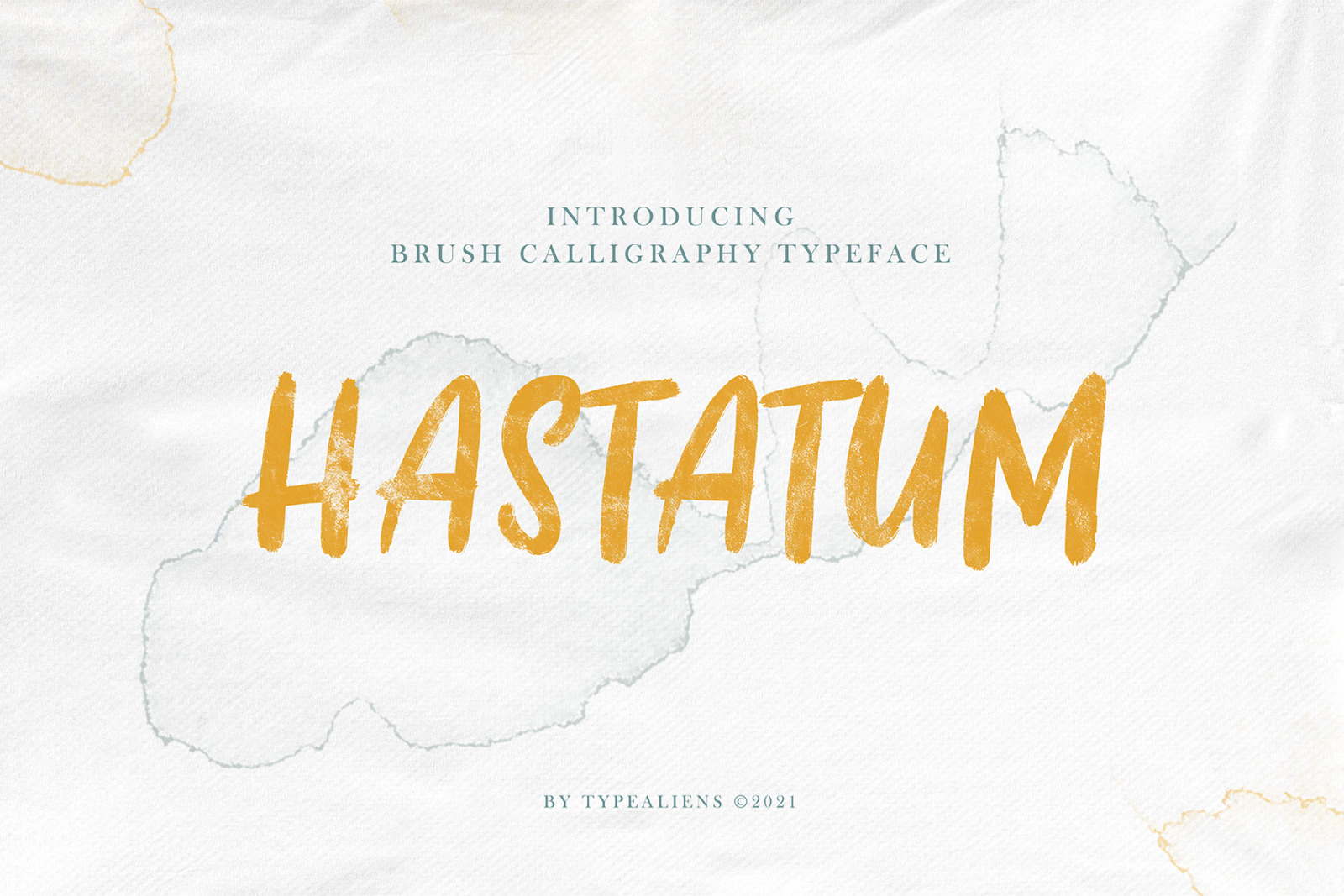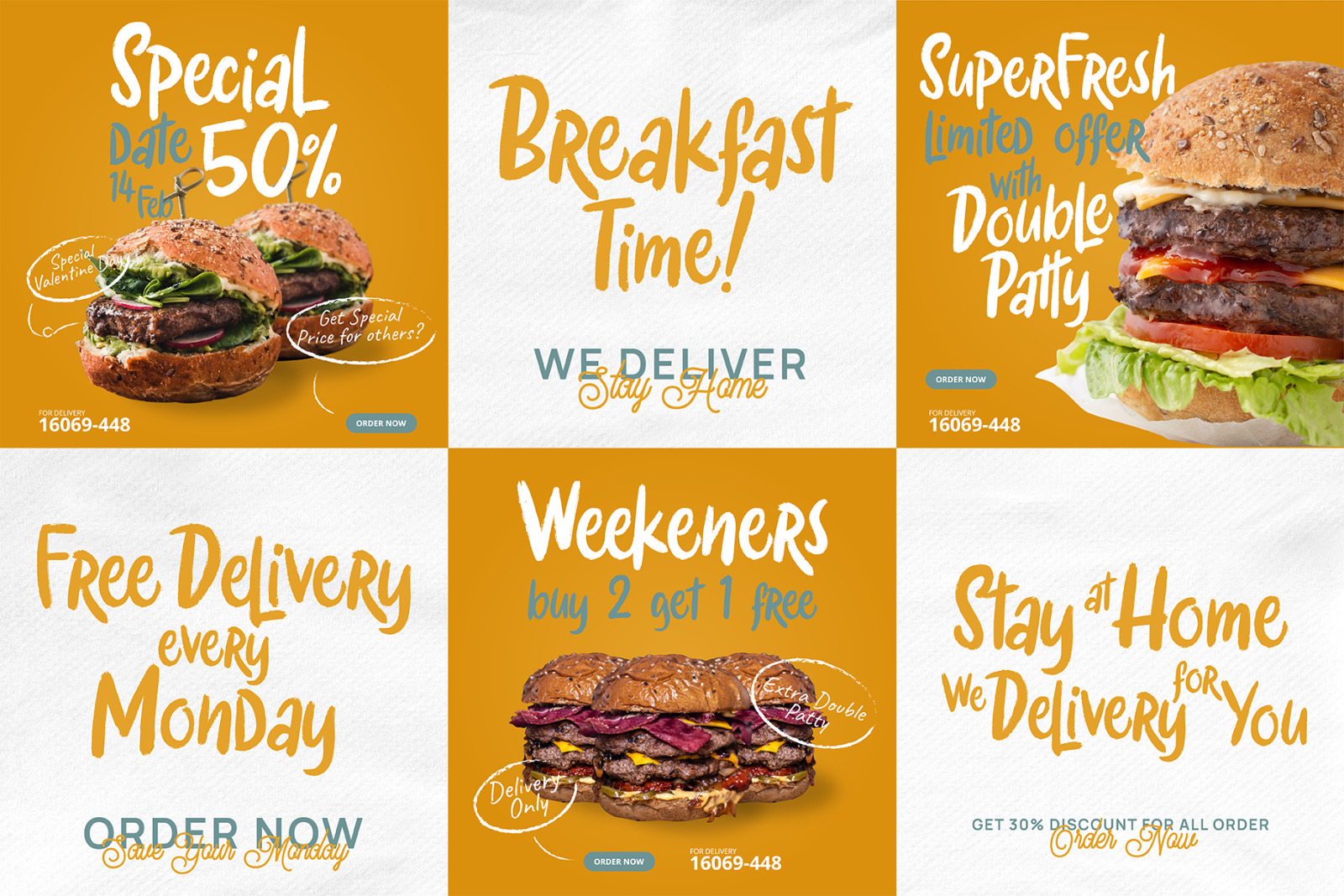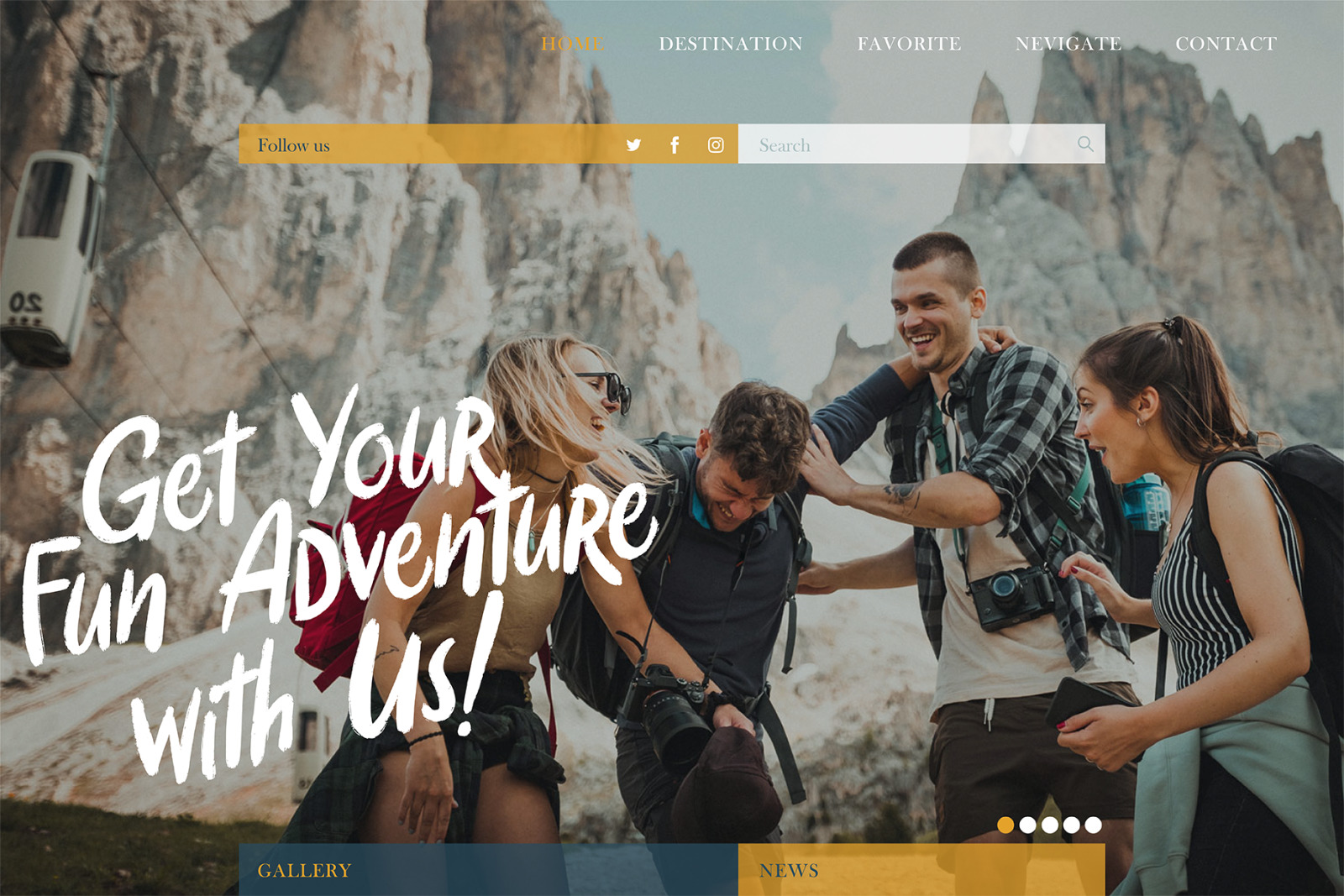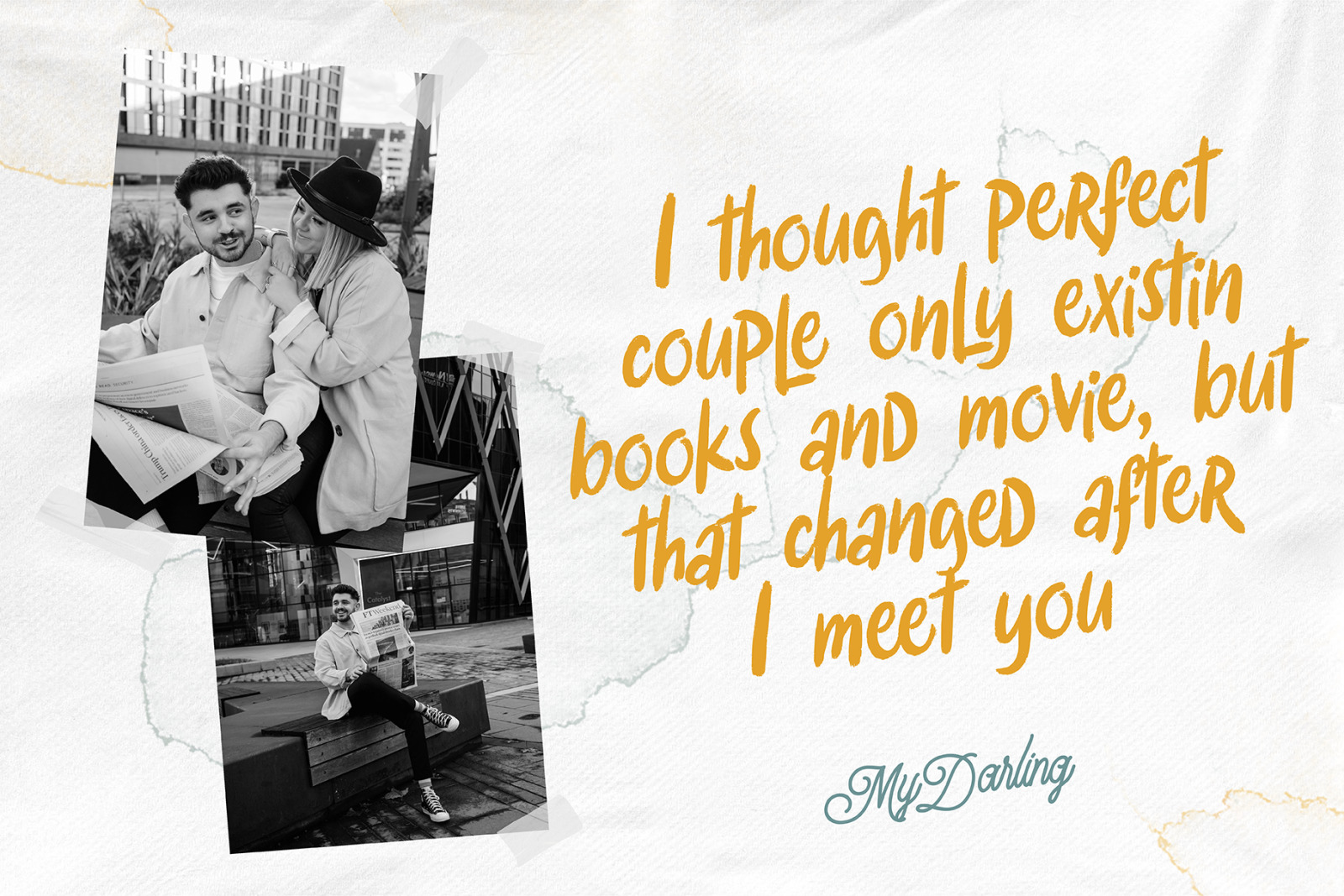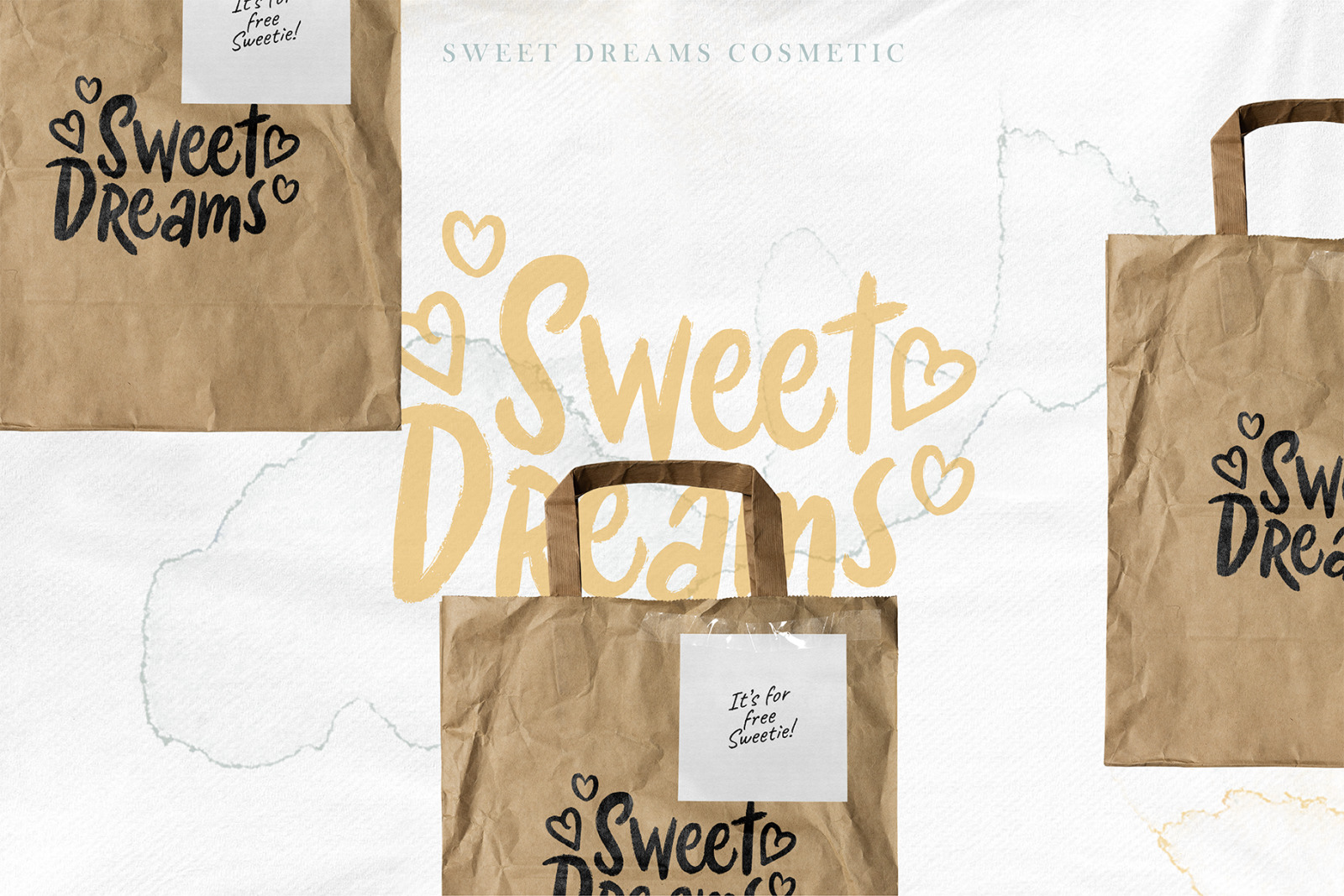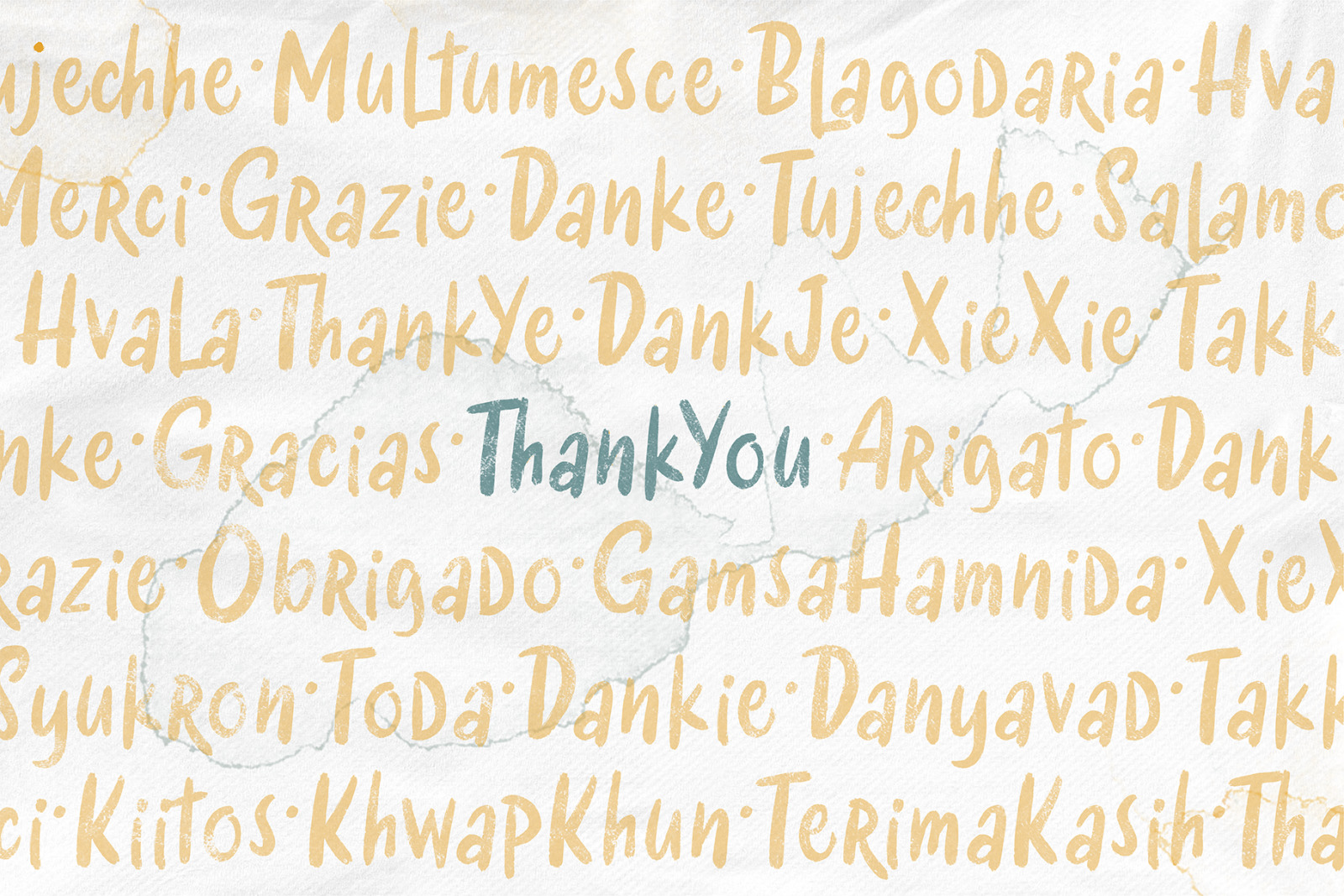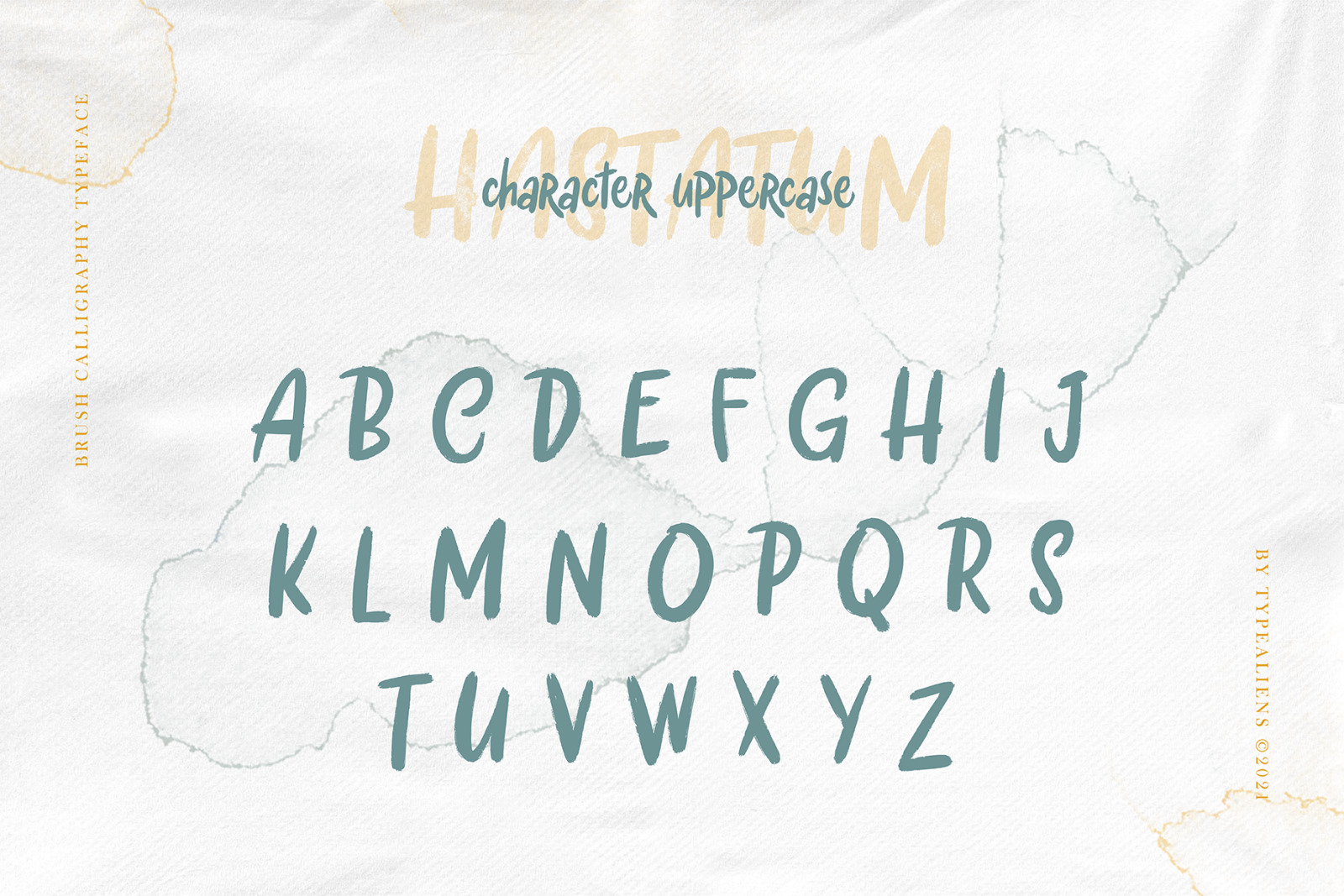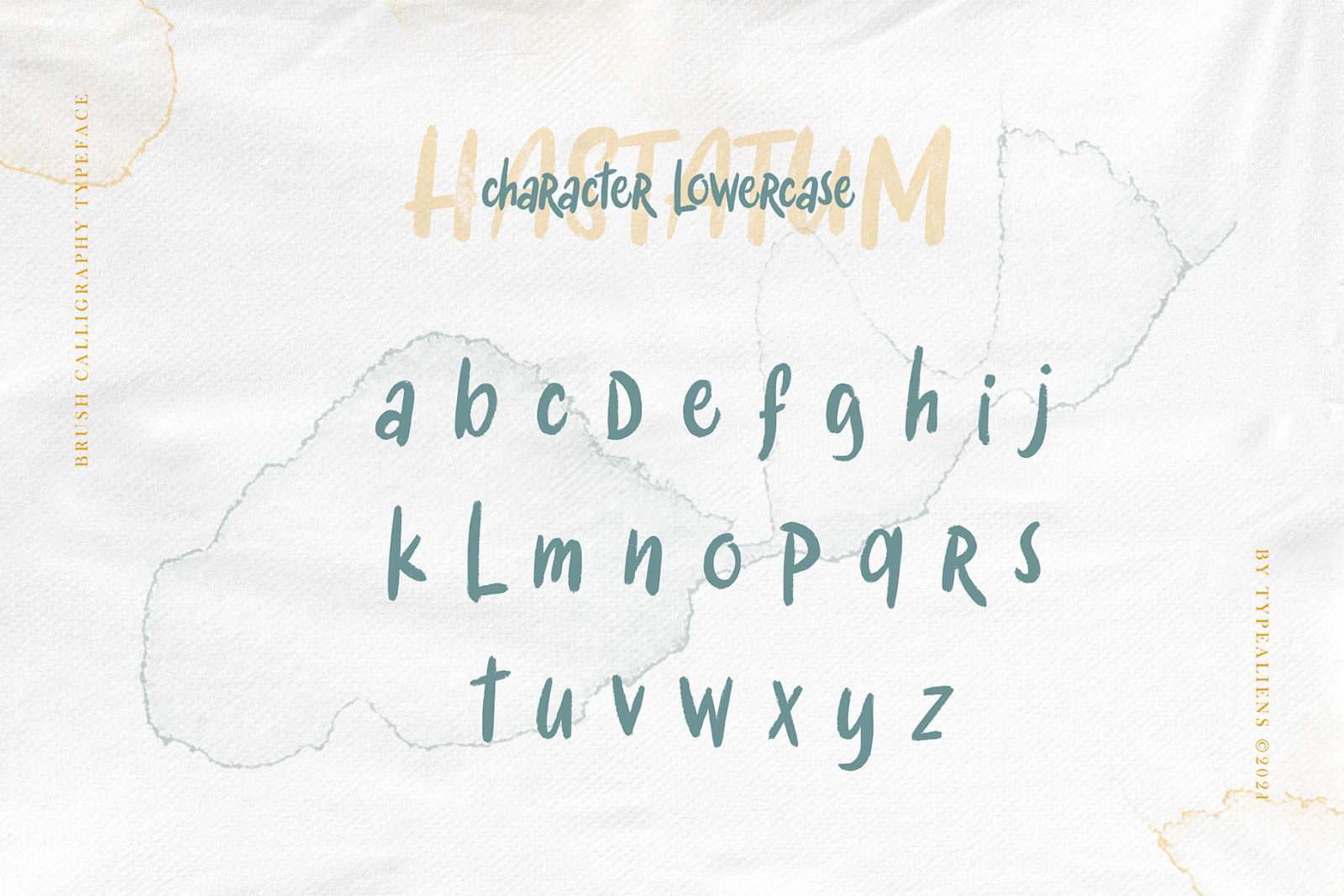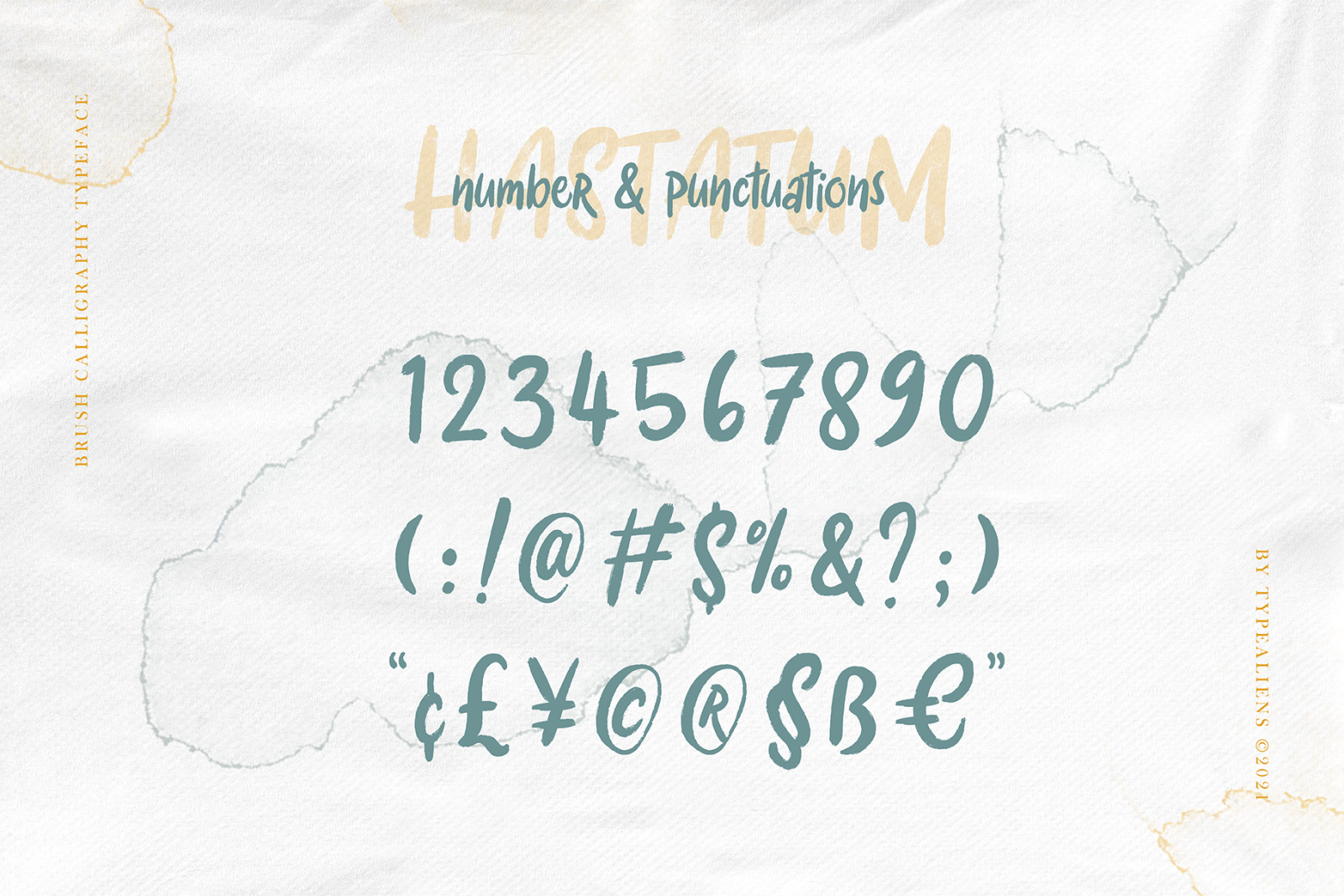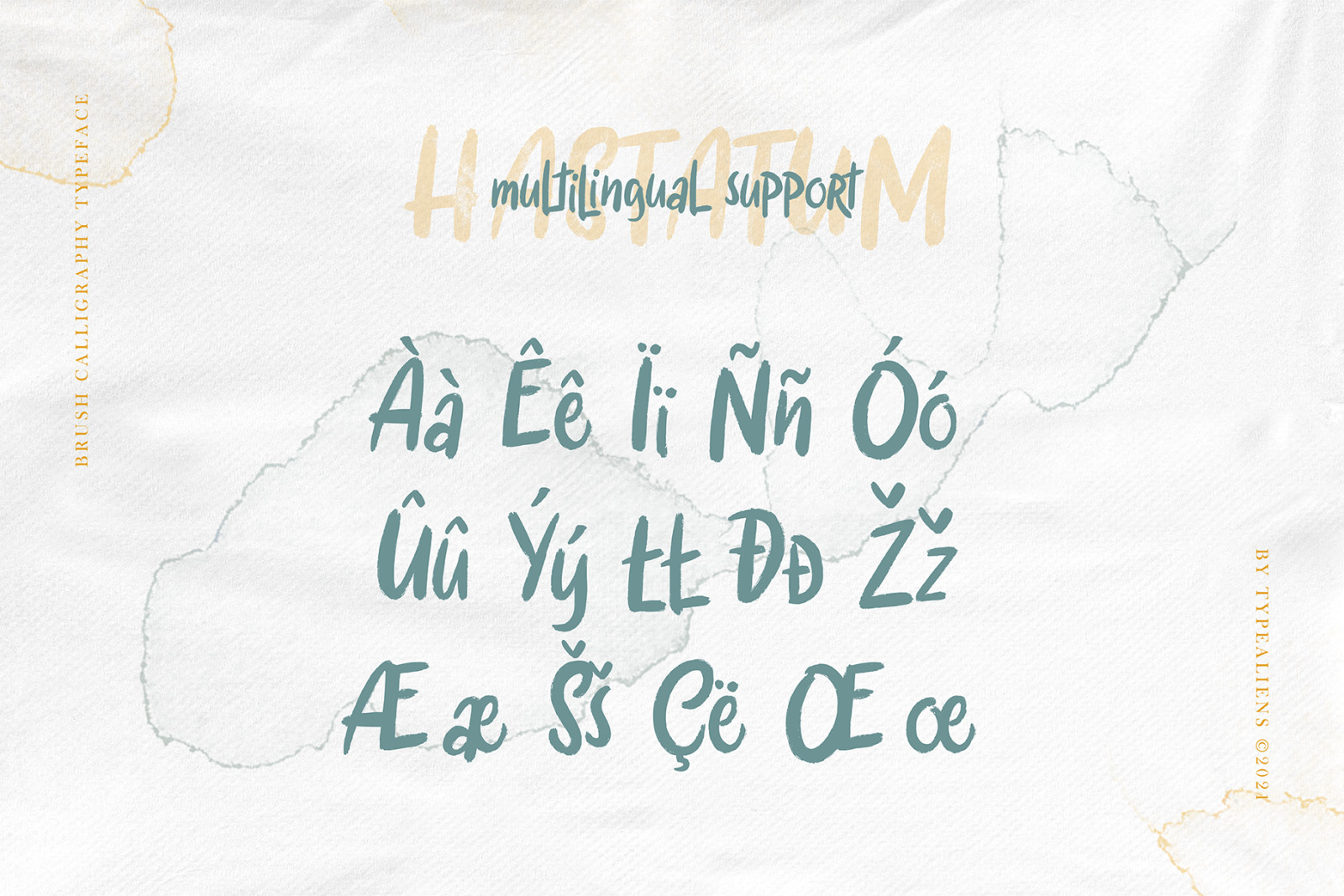
Hastatum Font
HASTATUM is a sans serif font with a brush lettering style, with a playful nature.
It is suitable for simple or complex designs, or casual and informal designs. For example, for designs related to food and beverages, children's designs, websites etc.